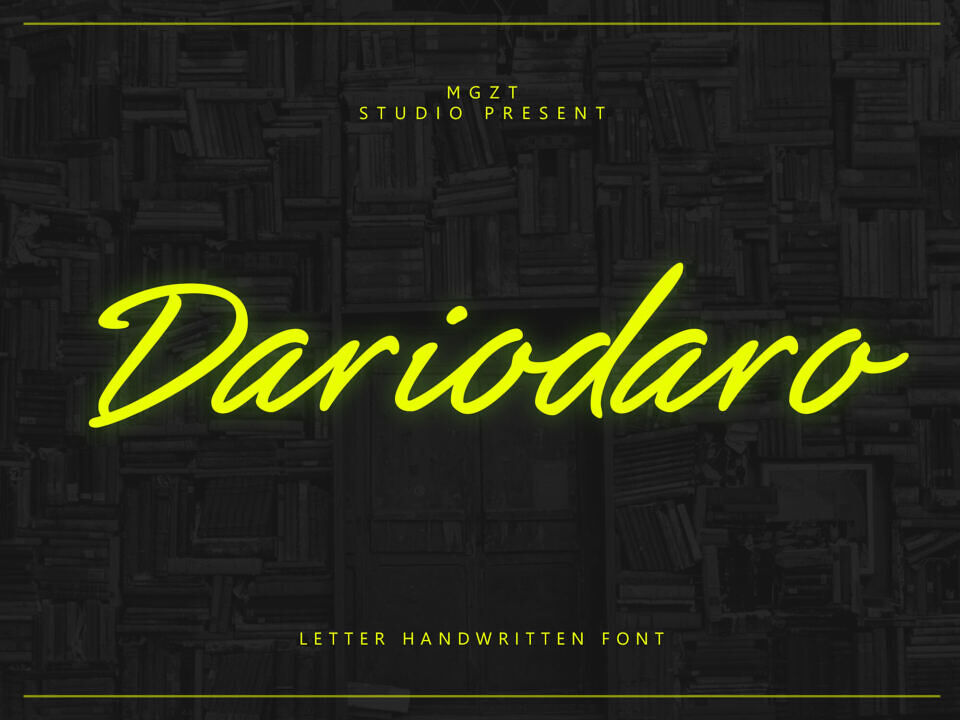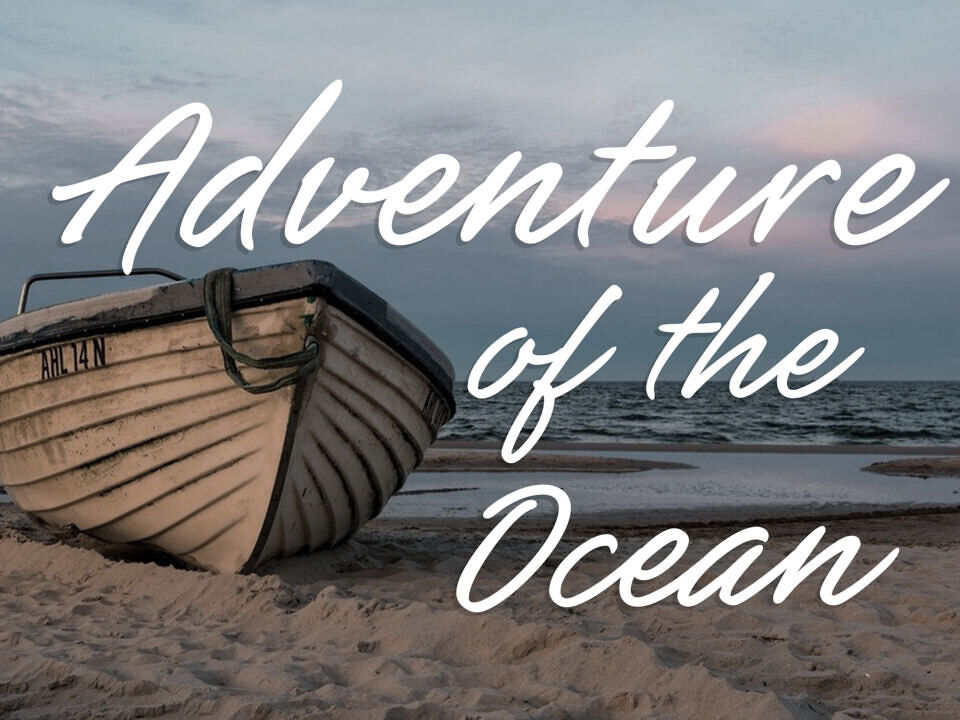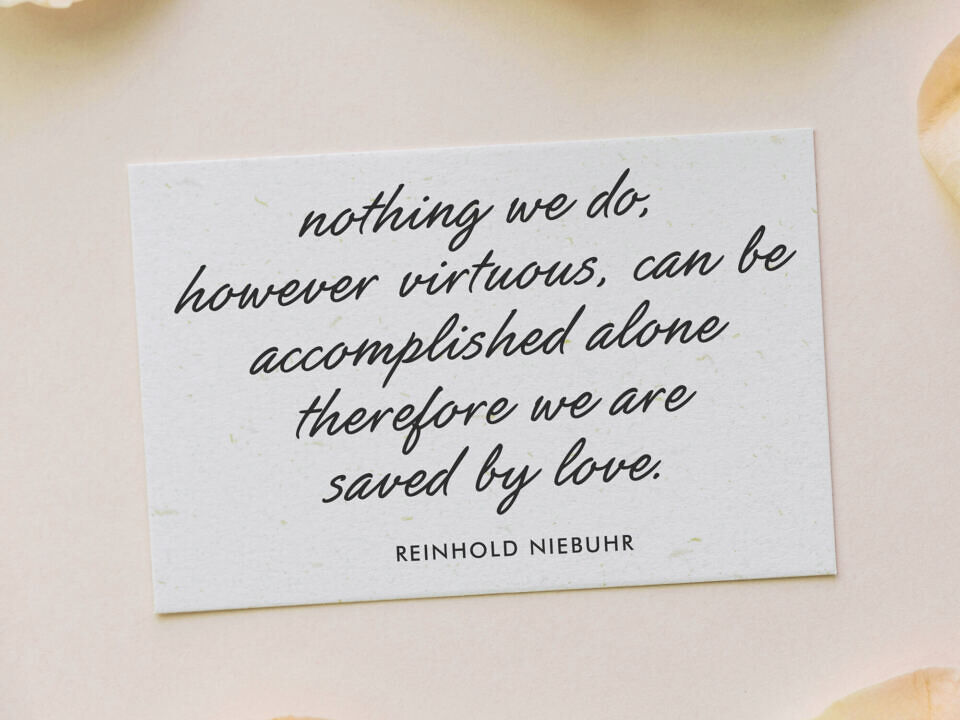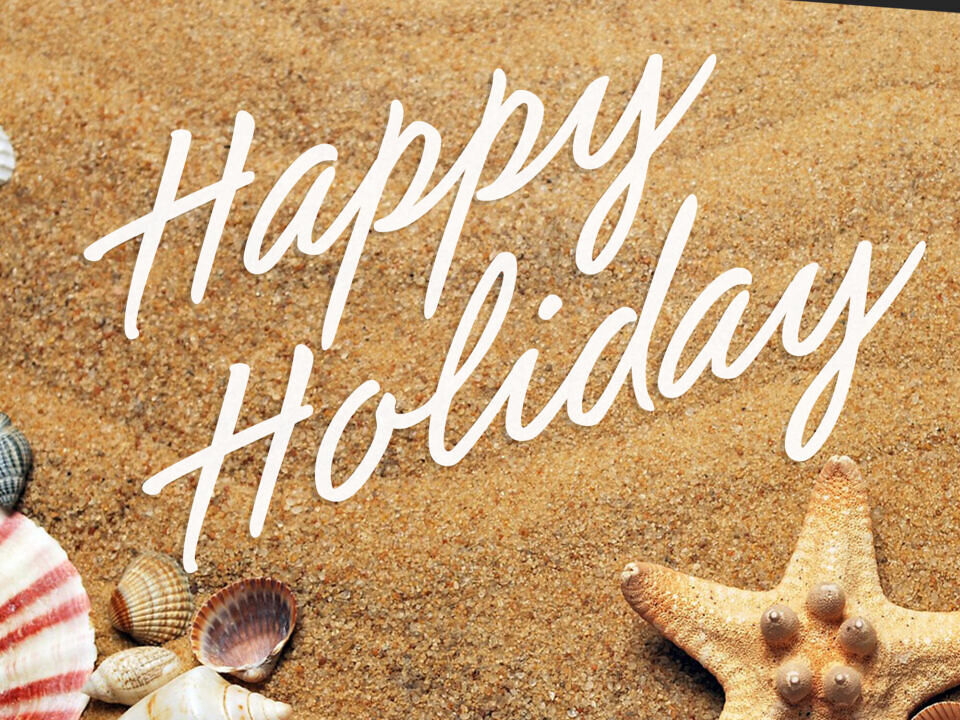
Dariodaro features playful, rounded strokes that convey a sense of warmth and charm. Despite its whimsical nature, the font maintains a sophisticated air, making it suitable for a variety of upscale yet friendly applications.
The gentle curves and well-proportioned characters ensure readability while adding a touch of joy and refinement to your designs. Ideal for personal stationery, invitations, and branding that seeks to be approachable yet classy, Dariodaro brings a unique blend of sweetness and elegance to any project, making every message feel special and endearing.